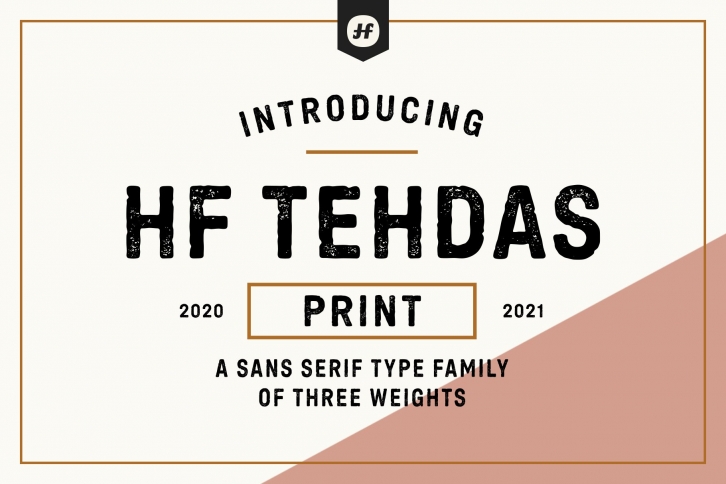
HF Tehdas Print is a sans serif type family of three weights. It is based on geometric forms, so it is a clear and straightforward typeface. It has an industrial feel and it also reminds of street signage. It is ideal to be used in logos, packages and titles.
HF Tehdas Print has two sets of upper- and lowercases. You can manually alternate the two sets of upper- and lowercases or you can enable the Contextual Alternates OpenType feature to automatically cycle these two sets of letters.